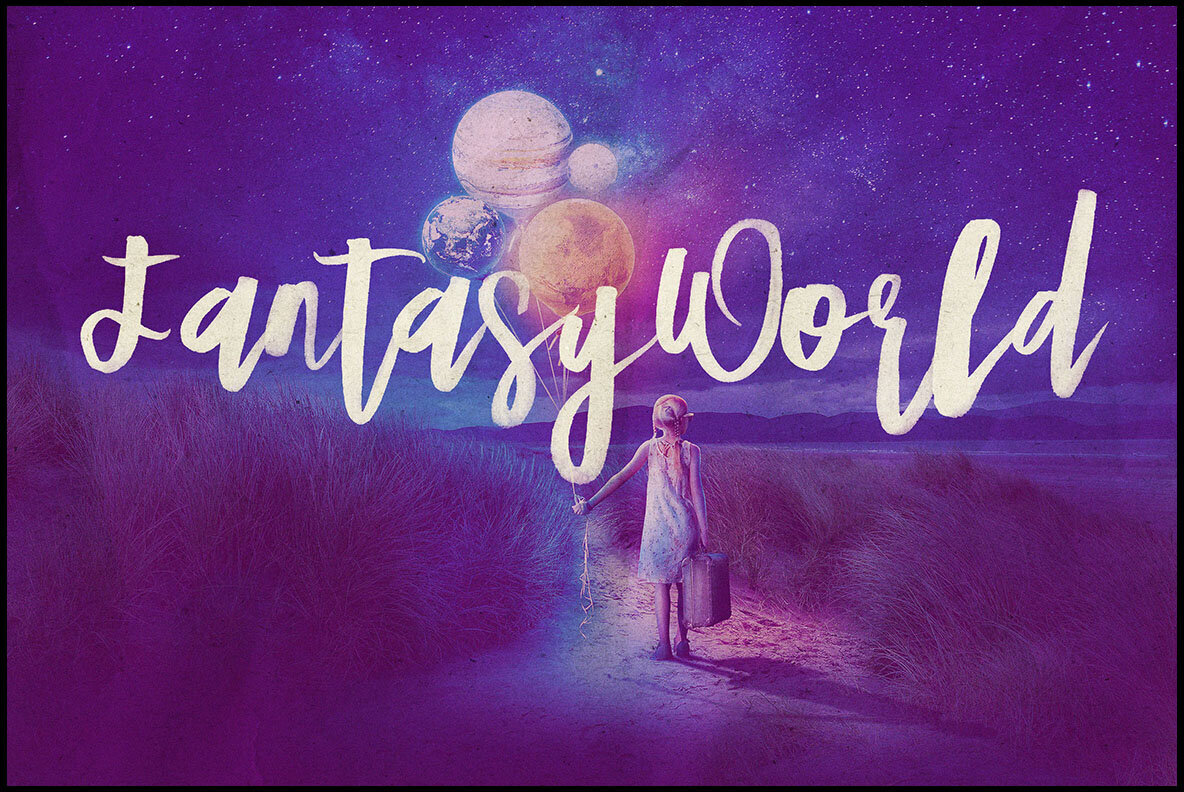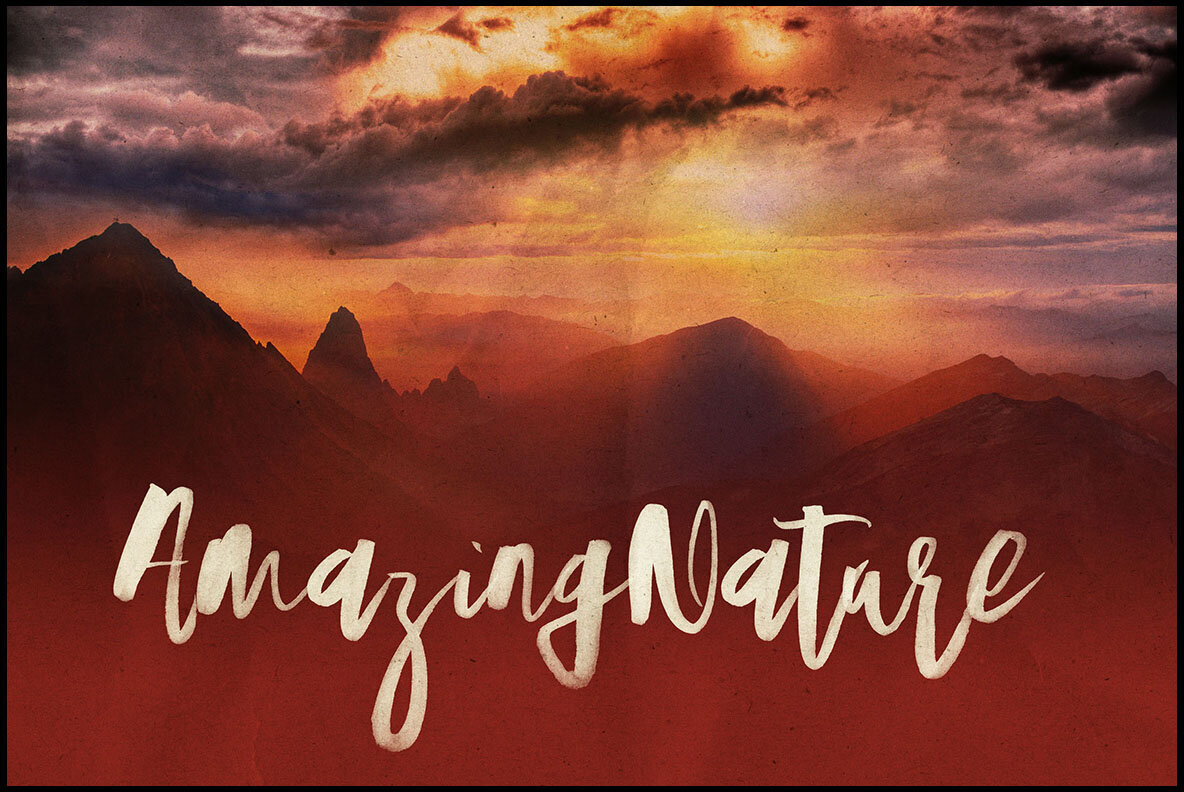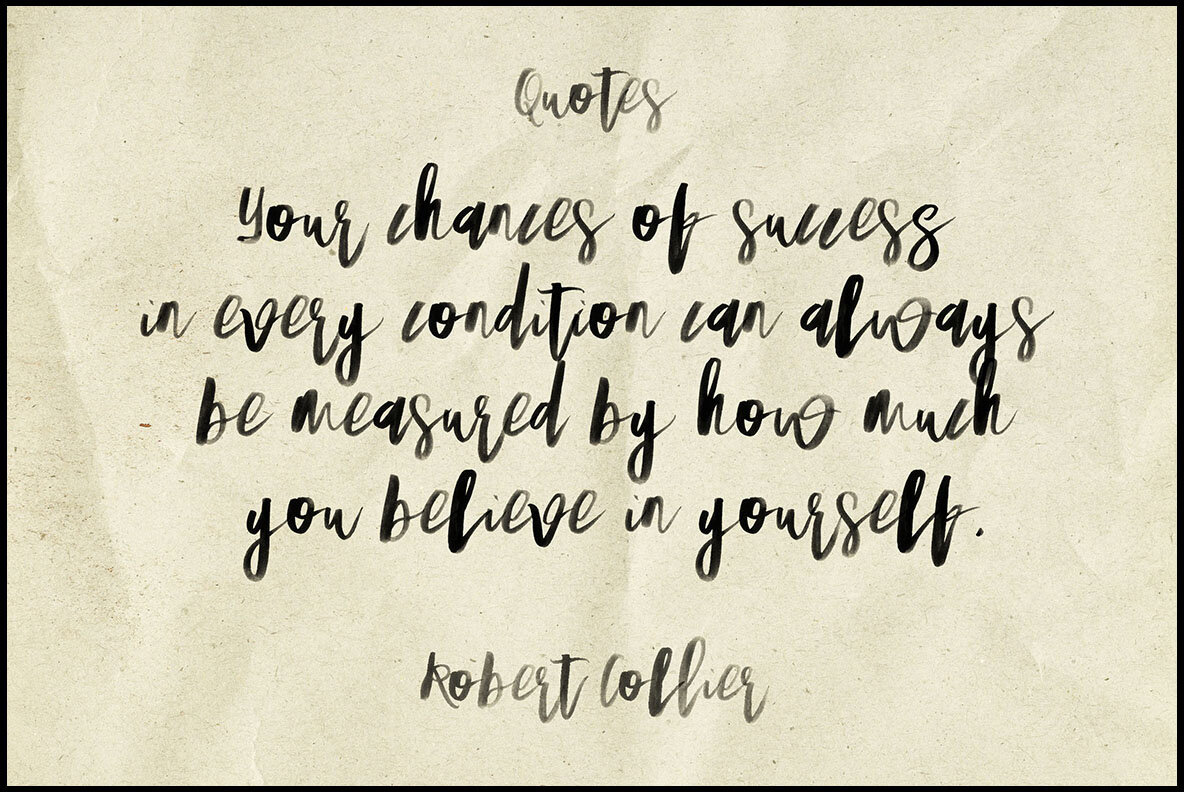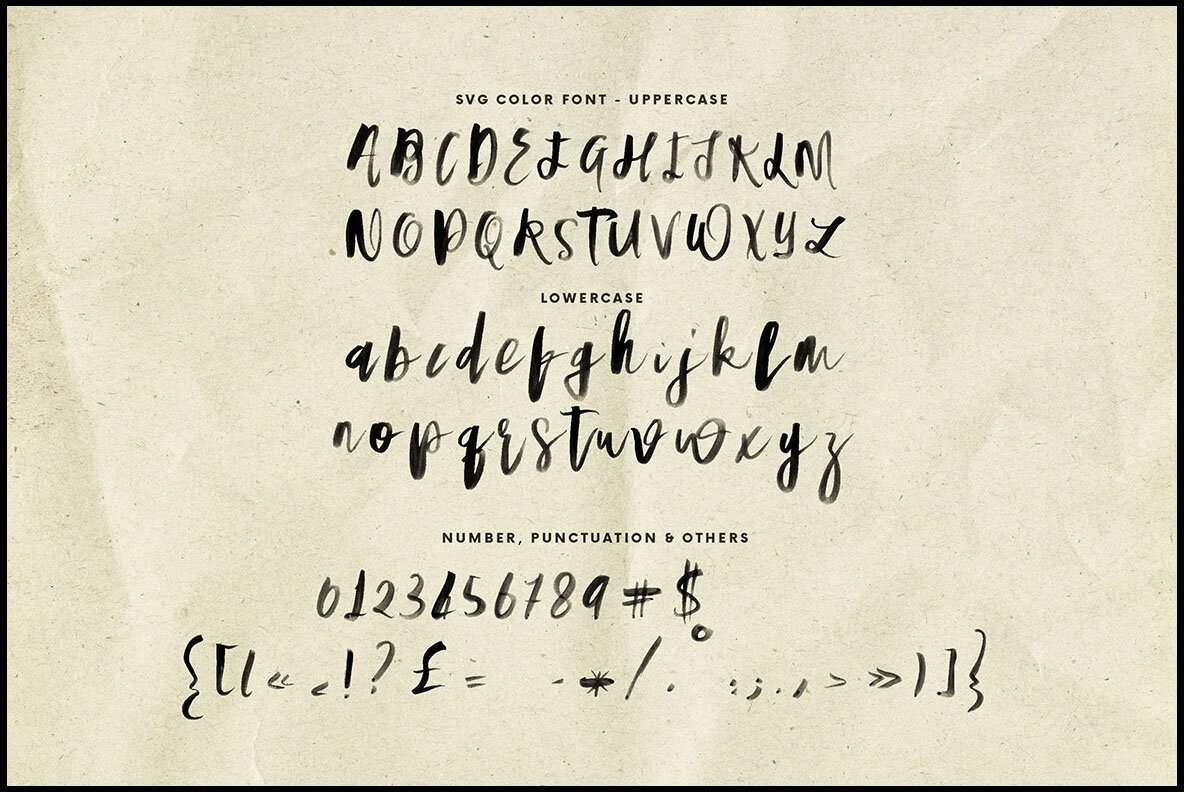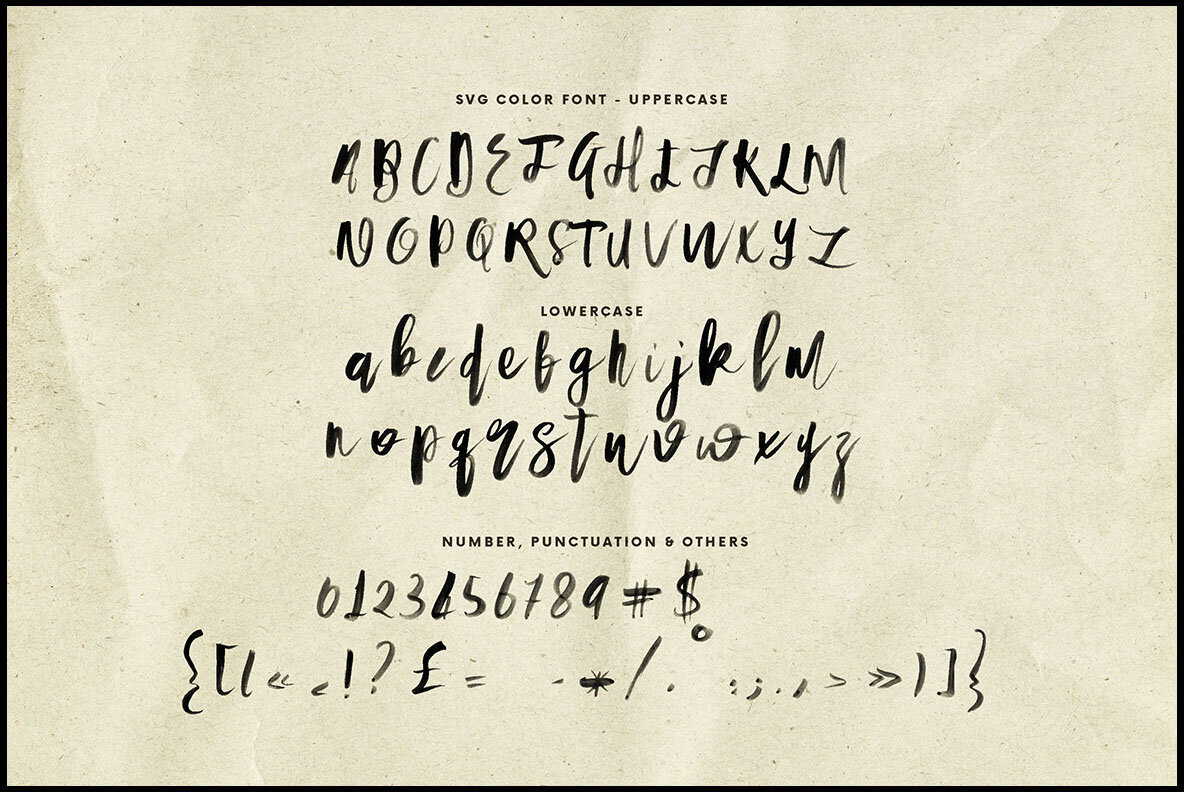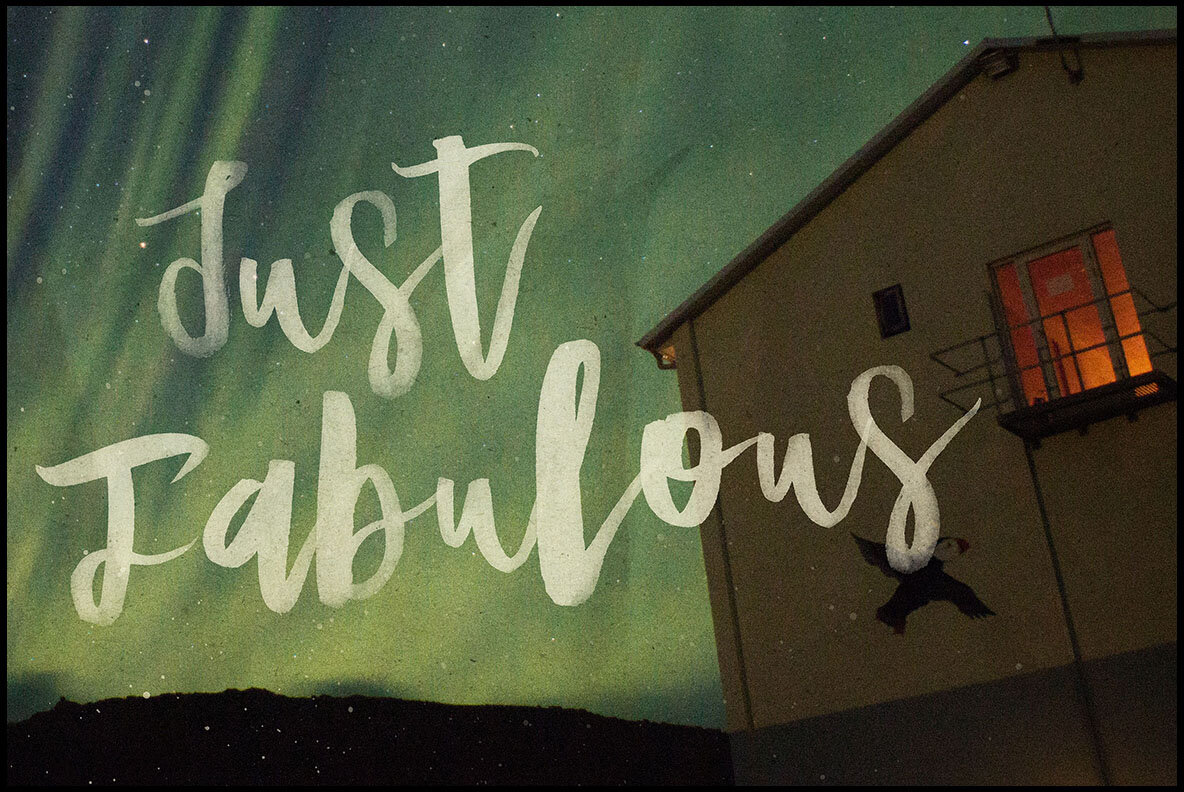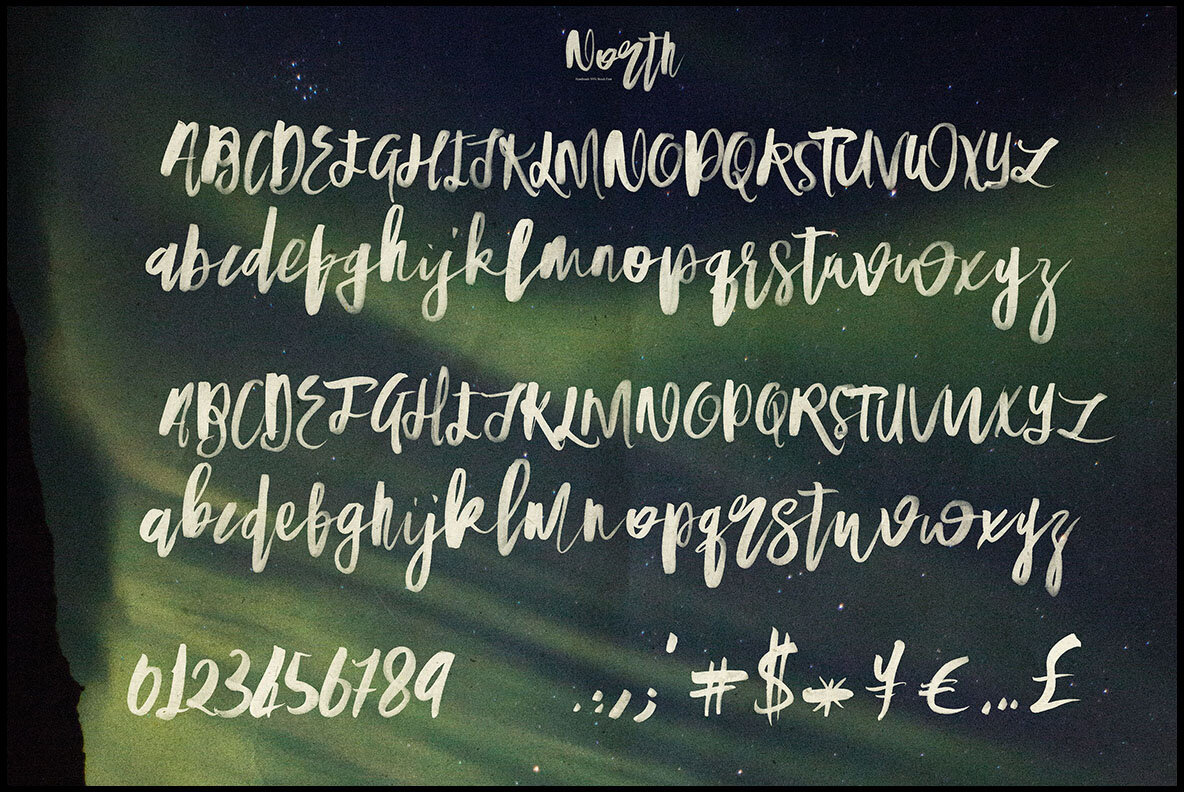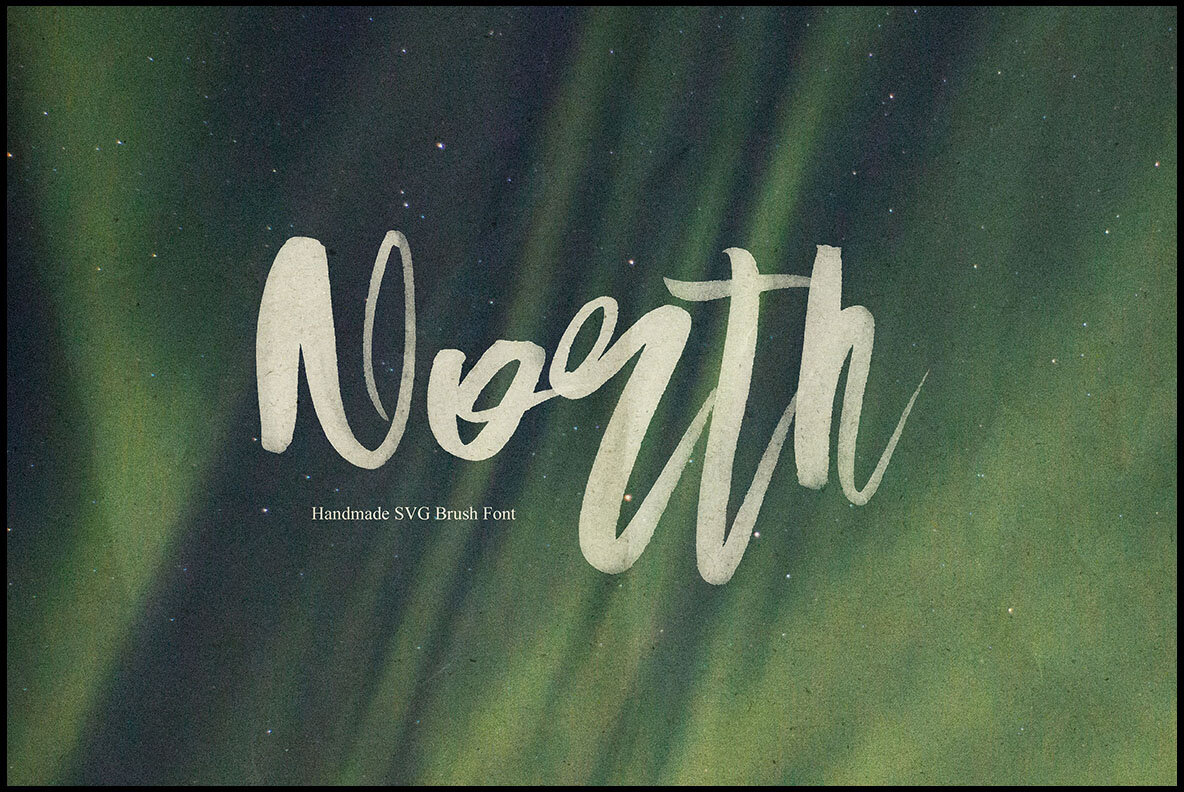
North Script Font
North Script is a brush, rough, and elegant script display font designed to add a unique touch to your projects. Handwritten using an organic brush marker, it is perfect for grunge, urban, or artistic themes. North Script offers versatility with its assortment of styles and is suitable for various creative projects. Note: Specific features are optimized for certain software versions.North Script by Peter Olexa: Brush Style Script Font